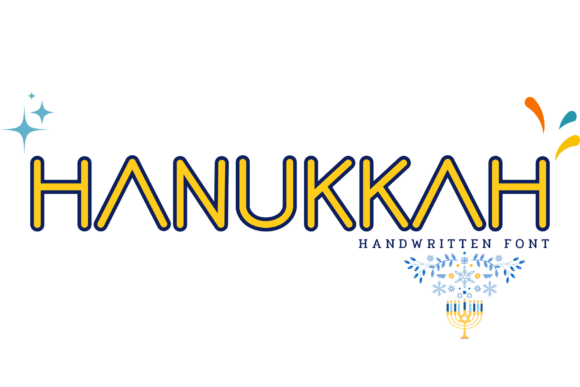
Hanukkah Font: A Modern Rounded Font for Educational and Holiday Projects
The Hanukkah Font is a modern rounded font that has taken the design world by storm. Its clean, monoline letterforms and playful yet minimalist aesthetic make it a versatile choice for a wide range of projects. In this article, we’ll explore the features and benefits of the Hanukkah Font, and discuss how it can be used in educational projects, kids’ books, holiday themes, branding, and digital designs.
What is the Hanukkah Font?
The Hanukkah Font is a modern rounded font that features clean, monoline letterforms with a playful yet minimalist aesthetic. Its simplicity makes it incredibly versatile, perfect for a wide range of projects. The font’s rounded edges and smooth lines give it a friendly and approachable feel, making it ideal for use in educational materials, kids’ books, and holiday themes.
Key Features of the Hanukkah Font
The Hanukkah Font has several key features that make it a popular choice for designers:
- Clean and Simple Design: The font features clean, monoline letterforms with a minimalist aesthetic.
- Rounded Edges: The font’s rounded edges give it a friendly and approachable feel.
- Versatile: The font is perfect for a wide range of projects, including educational materials, kids’ books, holiday themes, branding, and digital designs.
- Playful yet Professional: The font’s playful aesthetic makes it perfect for use in projects that require a fun and creative approach.
Using the Hanukkah Font in Educational Projects
The Hanukkah Font is a great choice for educational projects. Its clean and simple design makes it easy to read, and its playful aesthetic makes it engaging for students. Here are some ideas for using the Hanukkah Font in educational projects:
- Textbooks and Workbooks: Use the Hanukkah Font in textbooks and workbooks for a clean and modern look.
- Handouts and Worksheets: Use the font in handouts and worksheets to add a playful touch.
- Presentations: Use the font in presentations to add a professional yet engaging touch.
Using the Hanukkah Font in Kids’ Books
The Hanukkah Font is a great choice for kids’ books. Its playful aesthetic and clean design make it perfect for use in children’s literature. Here are some ideas for using the Hanukkah Font in kids’ books:
- Storybooks: Use the Hanukkah Font in storybooks to add a playful touch.
- Picture Books: Use the font in picture books to add a modern and engaging touch.
- Early Readers: Use the font in early readers to help young readers learn to read.
Using the Hanukkah Font in Holiday Themes
The Hanukkah Font is a great choice for holiday themes, particularly for Hanukkah. Its clean and simple design makes it perfect for use in holiday cards, posters, and other materials. Here are some ideas for using the Hanukkah Font in holiday themes:
- Hanukkah Cards: Use the Hanukkah Font in Hanukkah cards to add a modern and festive touch.
- Holiday Posters: Use the font in holiday posters to add a playful and engaging touch.
- Social Media Graphics: Use the font in social media graphics to add a festive touch to your holiday messages.
Using the Hanukkah Font in Branding and Digital Designs
The Hanukkah Font is a great choice for branding and digital designs. Its clean and simple design makes it perfect for use in logos, business cards, and other marketing materials. Here are some ideas for using the Hanukkah Font in branding and digital designs:
- Logos: Use the Hanukkah Font in logos to add a modern and professional touch.
- Business Cards: Use the font in business cards to add a clean and simple touch.
- Website Design: Use the font in website design to add a playful and engaging touch.
The Hanukkah Font is a versatile and modern rounded font that is perfect for a wide range of projects. Its clean and simple design, playful aesthetic, and rounded edges make it a great choice for educational projects, kids’ books, holiday themes, branding, and digital designs. Whether you’re looking for a font for a specific project or just want to add a modern touch to your designs, the Hanukkah Font is a great choice.